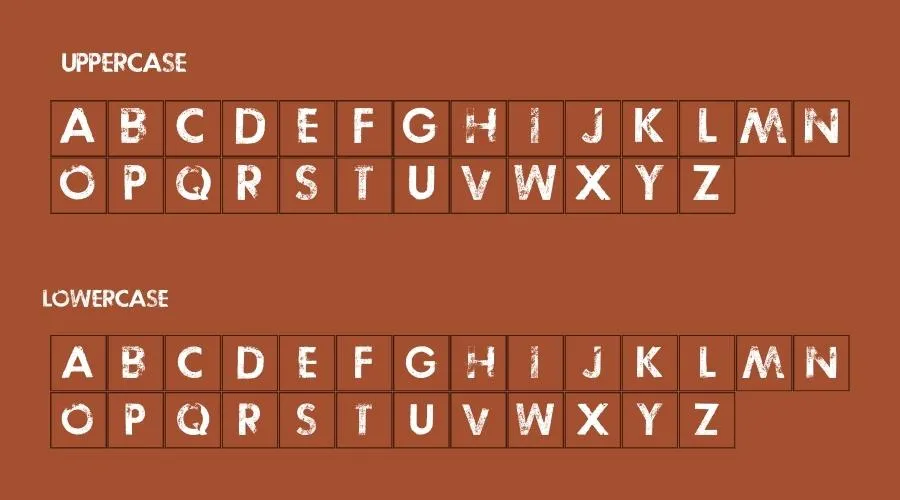
Tosca Zero Font
About Tosca Zero Font
The Tosca Zero Font is a famous texture all around the world. This attractive texture was invented by Billy Argel Fonts with unique type of styles and weights like Regular, bold, and italic. You can download this fancy font free version from here.
It has a variety of texture that look appearance to visitors and makes your designs more attractive. This font includes uppercase letters, lowercase letters, numbers, symbols, digits, and many more. You can easily compare it with Beatster Font and create good-looking designs.
Whether you are looking for a modern font for body text or a reliable font for coding, this font is a wonderful option for all your fun projects and methods.